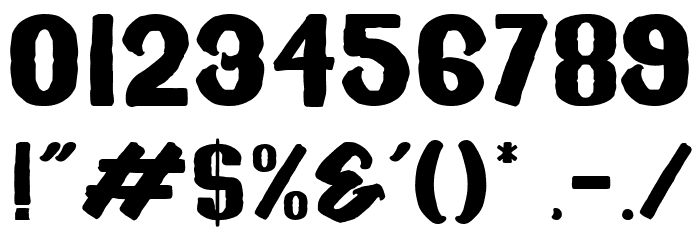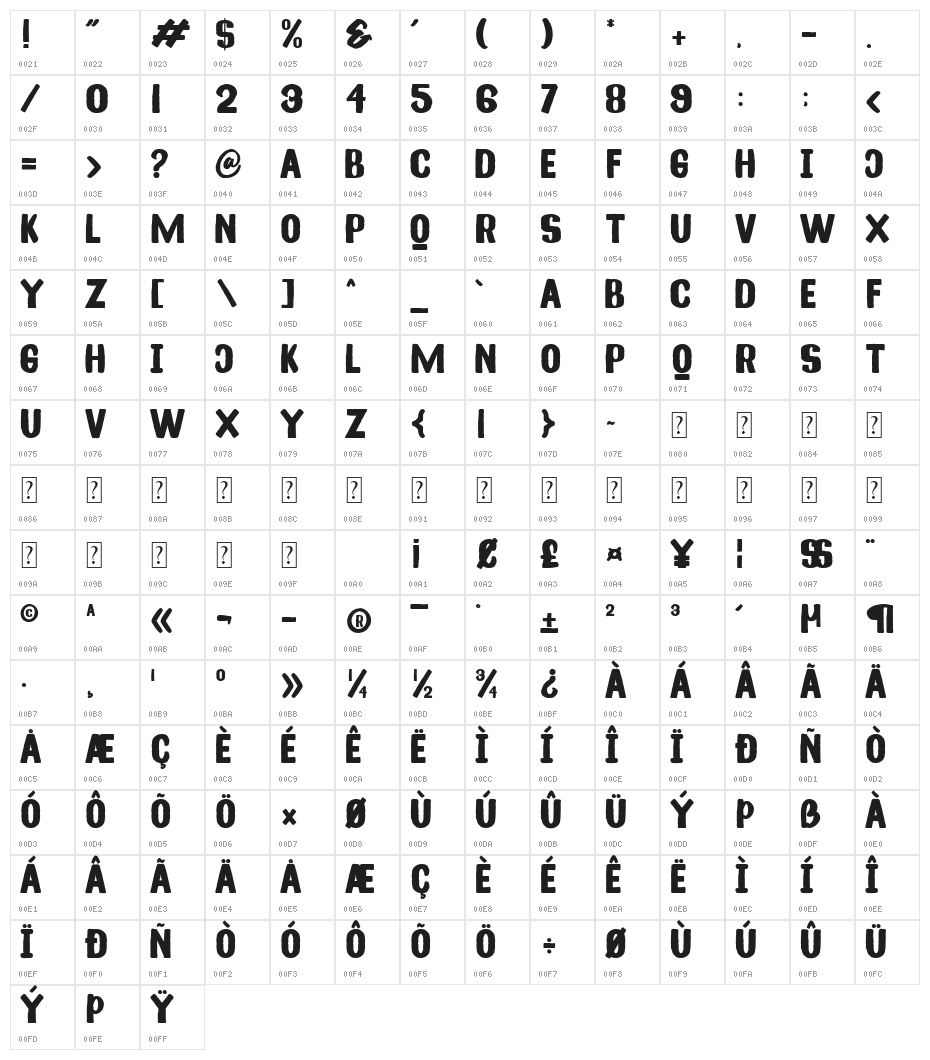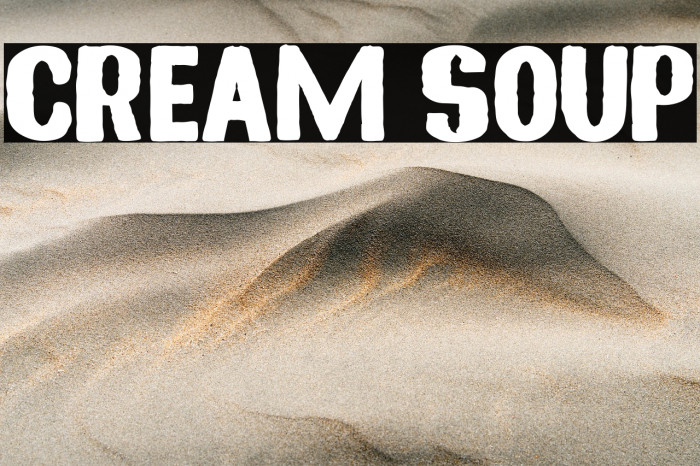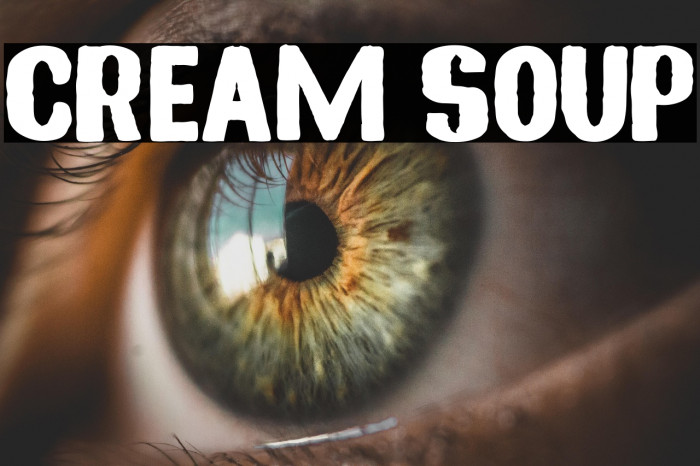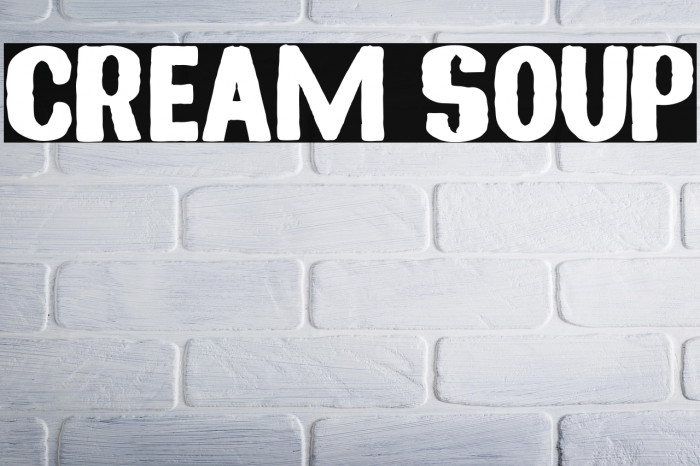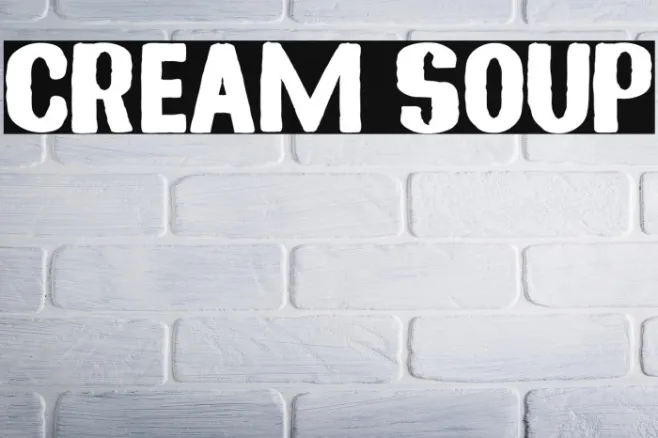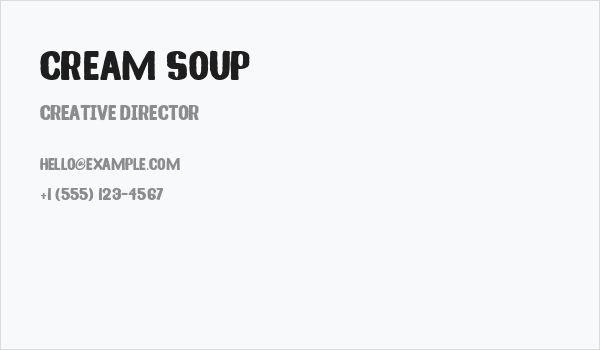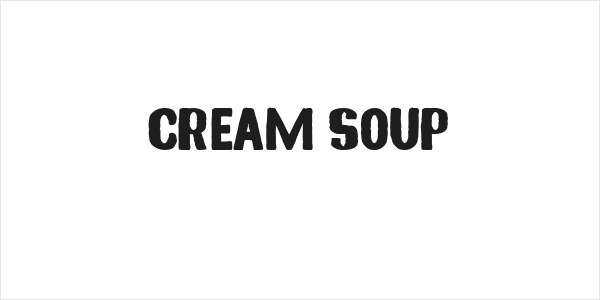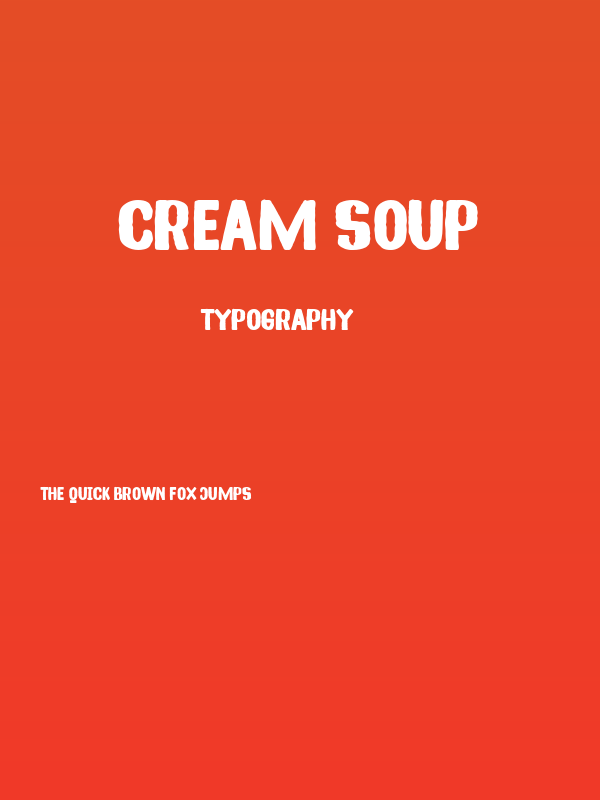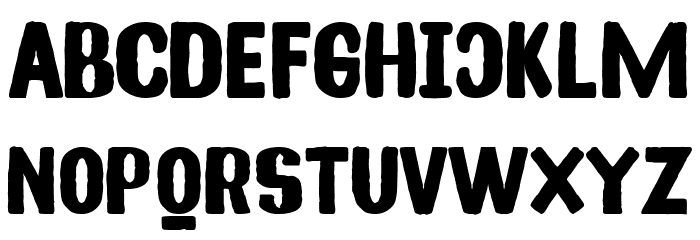
Cream Soup Font
Cream Soup Description
This font features a bold and impactful design with a slightly distressed texture, giving it a rugged and vintage feel. The characters are thick and robust, with a consistent stroke width that adds to its strong presence. The uppercase letters have a uniform height, while the lowercase letters maintain a similar weight, ensuring readability. The numbers are equally bold, matching the style of the alphabetic characters. Special characters are included, maintaining the same bold and textured appearance. This font is ideal for projects that require a strong, eye-catching typeface with a touch of nostalgia.
| Proposed Projects | Ideal for posters, branding, packaging, and any design needing a bold, vintage touch. |